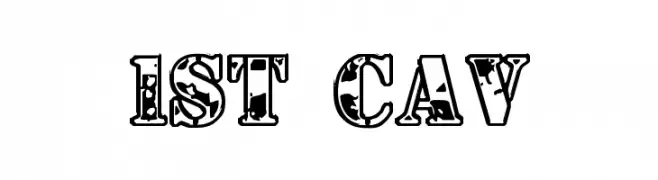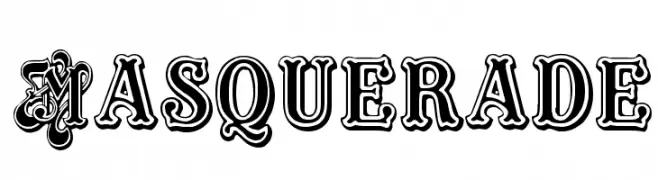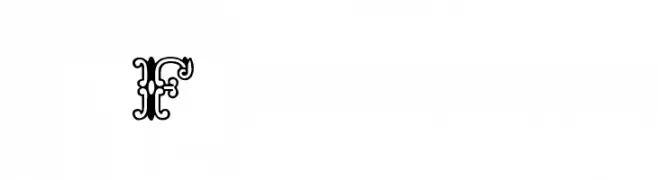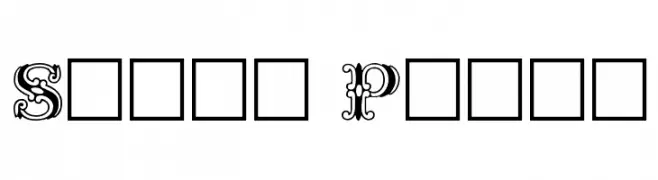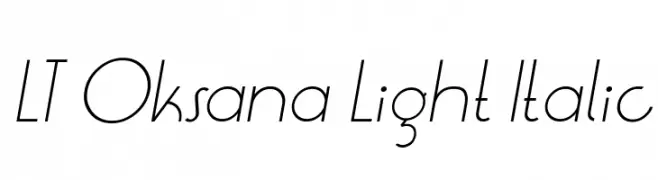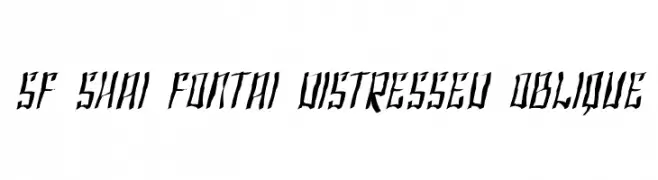
A bold, distressed decorative font with a vintage, grunge texture.
An ornate, vintage-style decorative font with intricate detailing.
An ornate and decorative font with intricate detailing and vintage charm.
An ornate, decorative font with intricate detailing and a vintage aesthetic.
A sleek, light, and italicized font with a modern and elegant style.
A classic serif font with sharp serifs and high contrast, ideal for formal designs.
A distressed, oblique font with sharp, angular lines and a rugged texture.